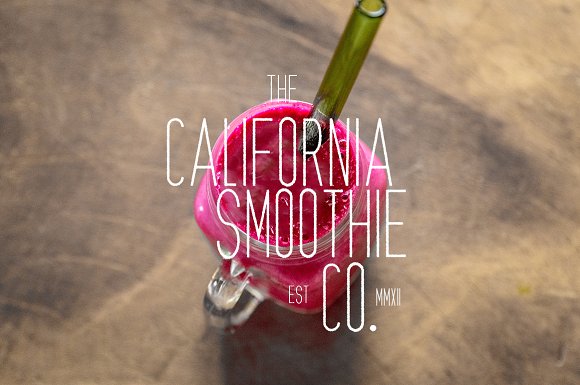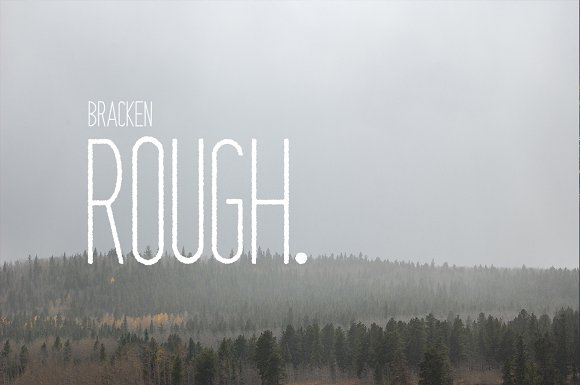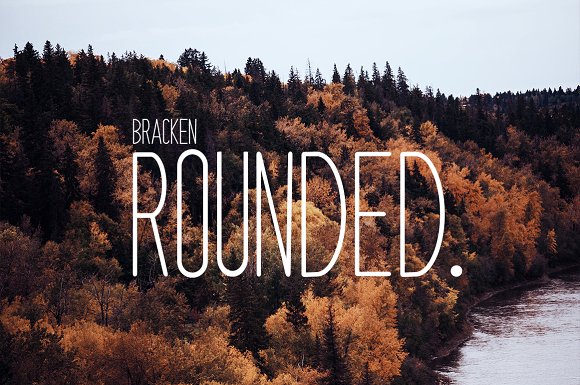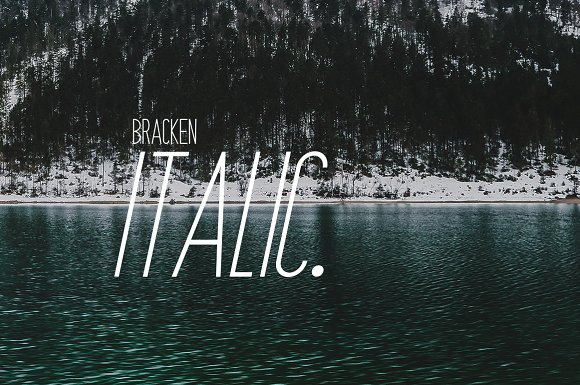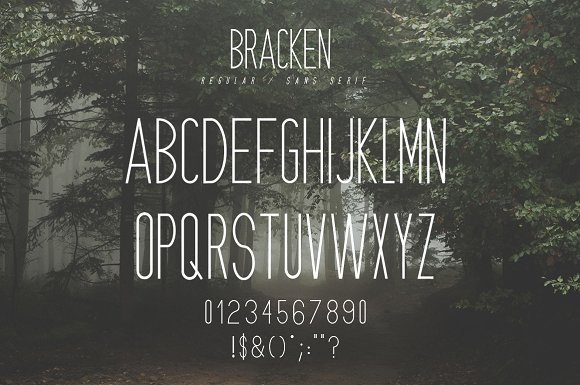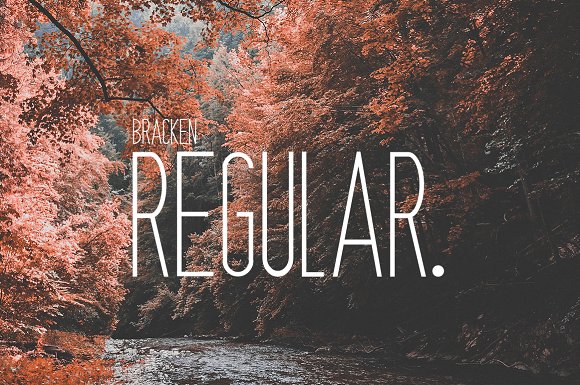
Bracken | A Hipster Font Family
Instantly Create Designs That Stand Out As Part of the Cool Crowd!
Bracken is a hipster font family, designed to add an edgy, modern and casual style to all your designs. Bracken comes with its original font, rough, rounded and italic versions, so you won’t need anything else to create amazing work!